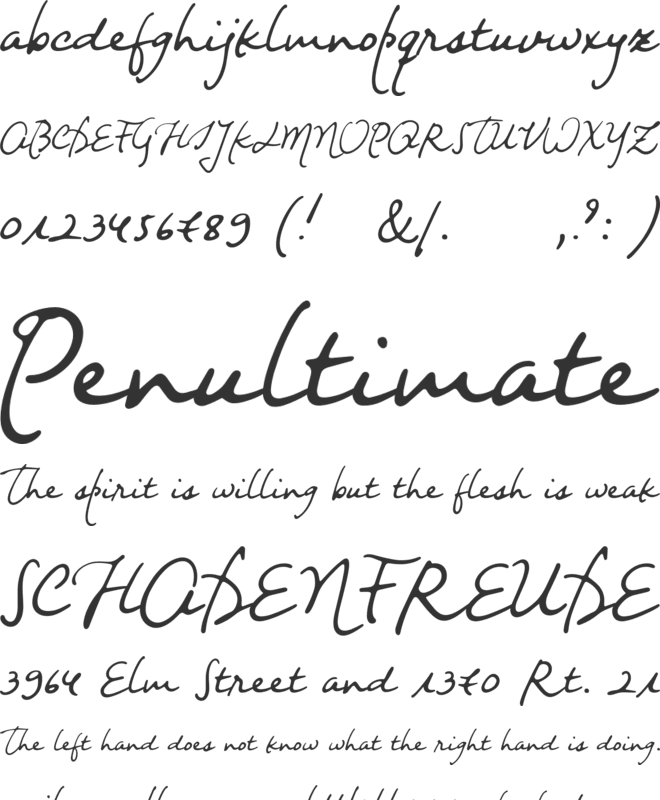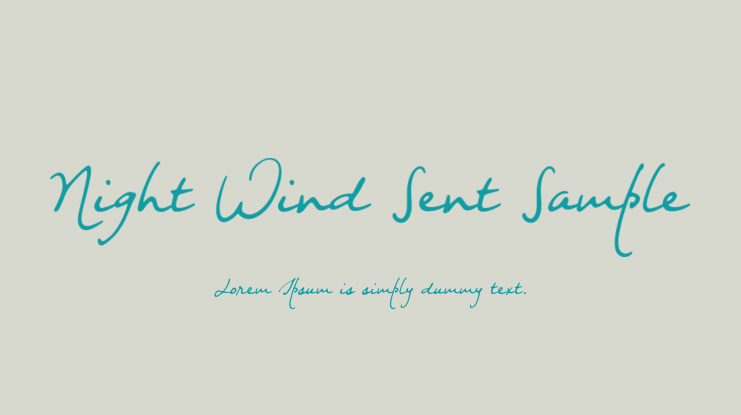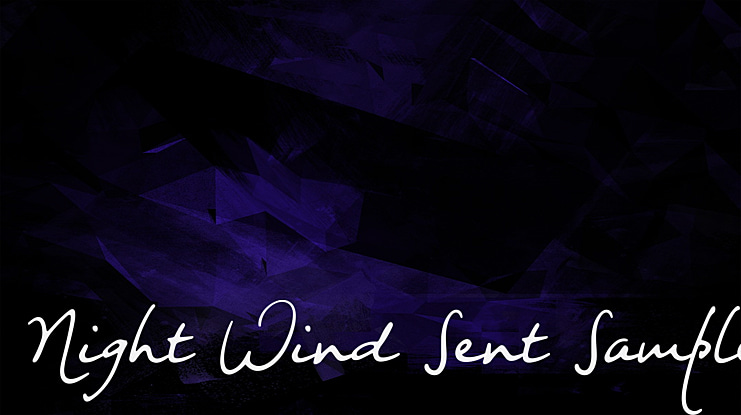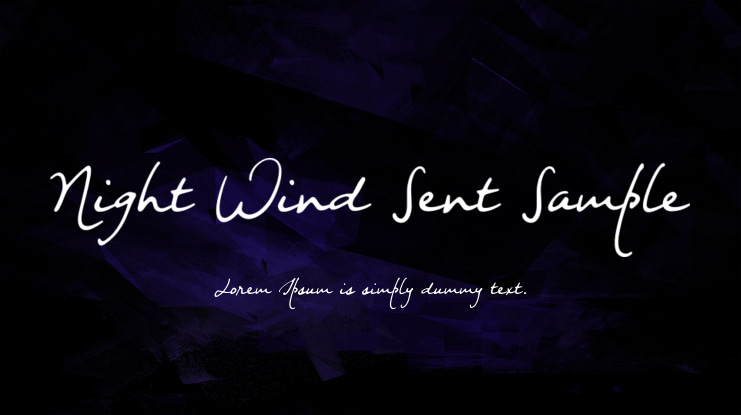
Night Wind Sent Sample Font
Ana Parracho
Night Wind Sent is an elegant handwritten font, with:
- A-Z, a-z, 0-9, accents punctuation and symbols - Ligatures - Stylistic Alternates - Small Caps - Swashes - Extra versions of the font: underline and strikethrough - Ornaments with which to decorate your text